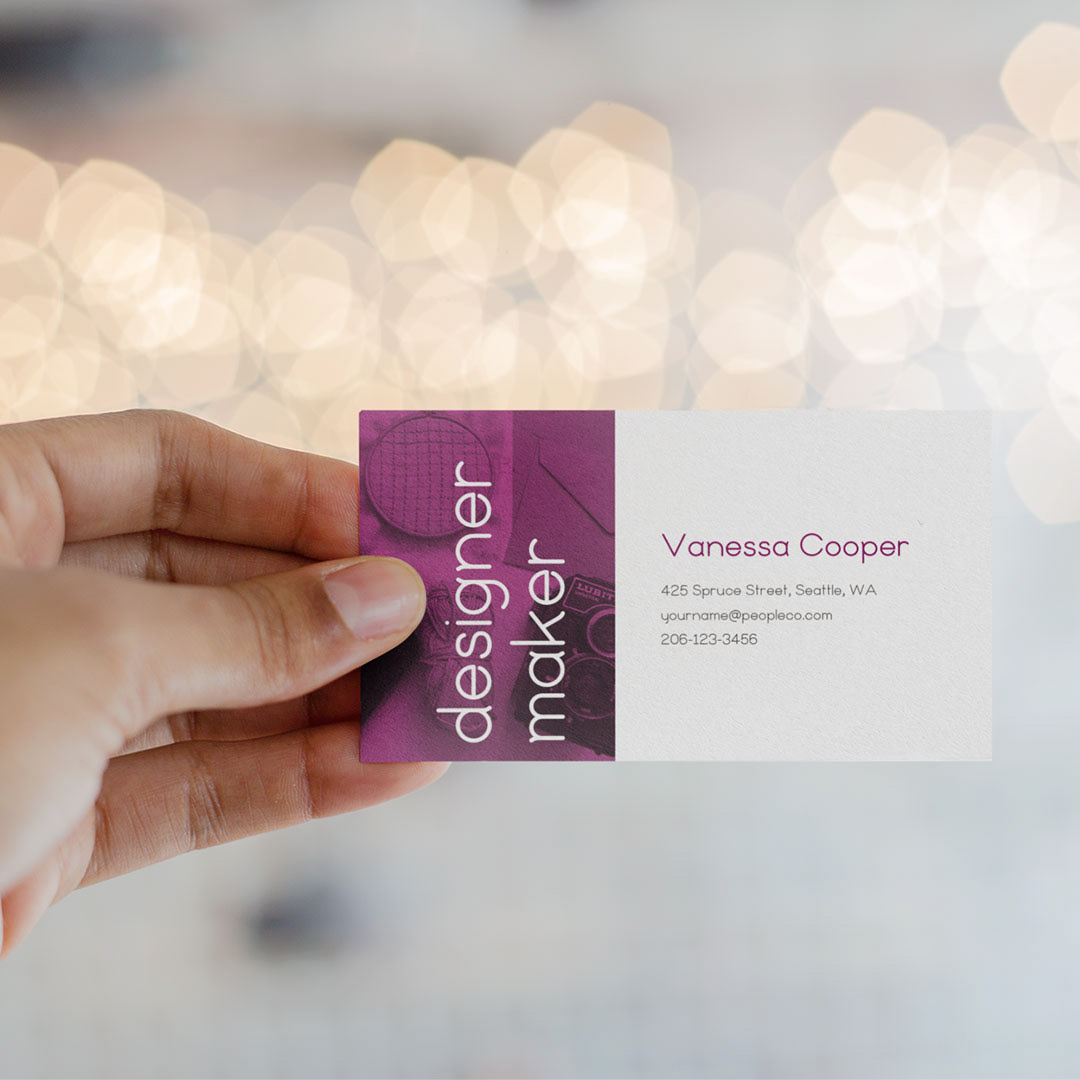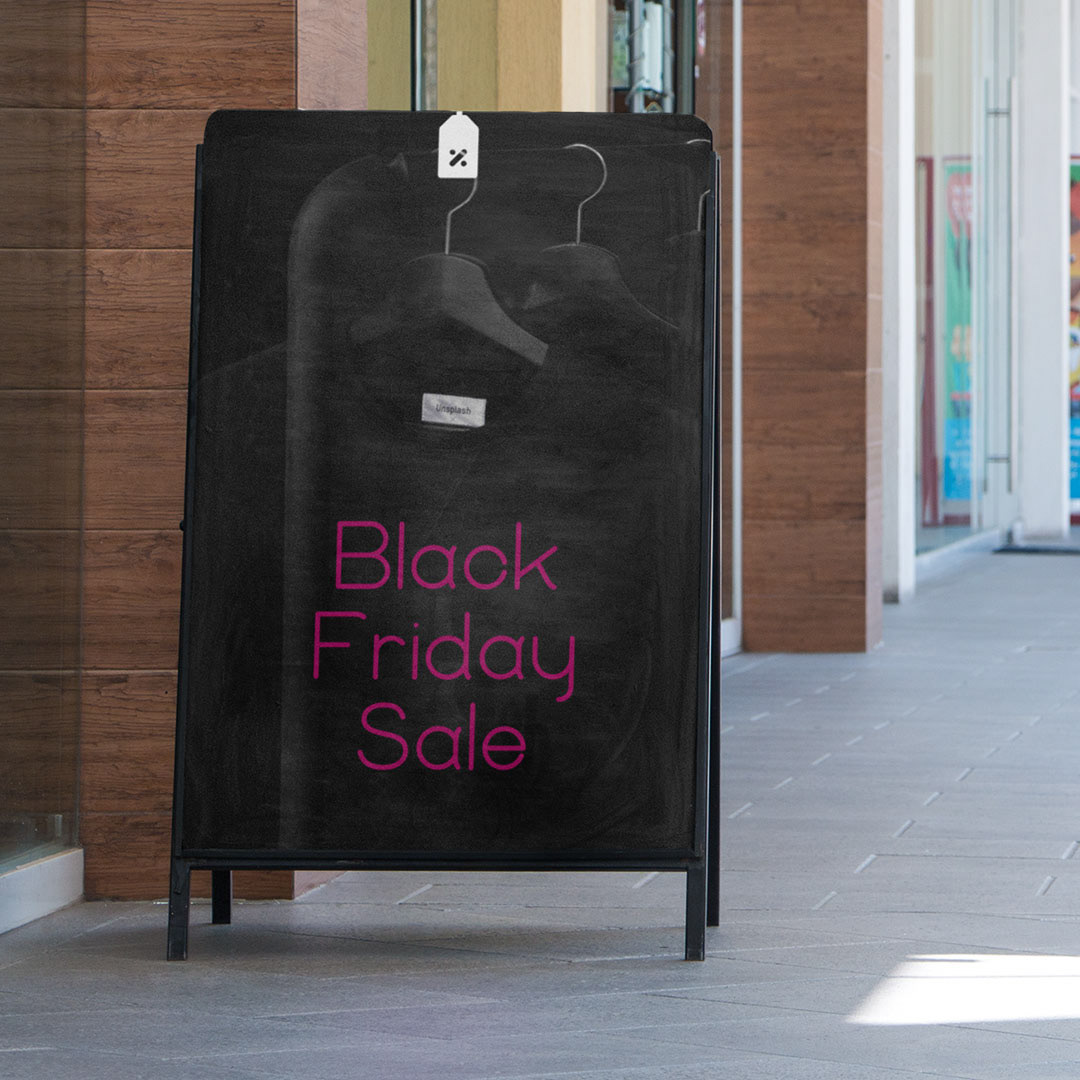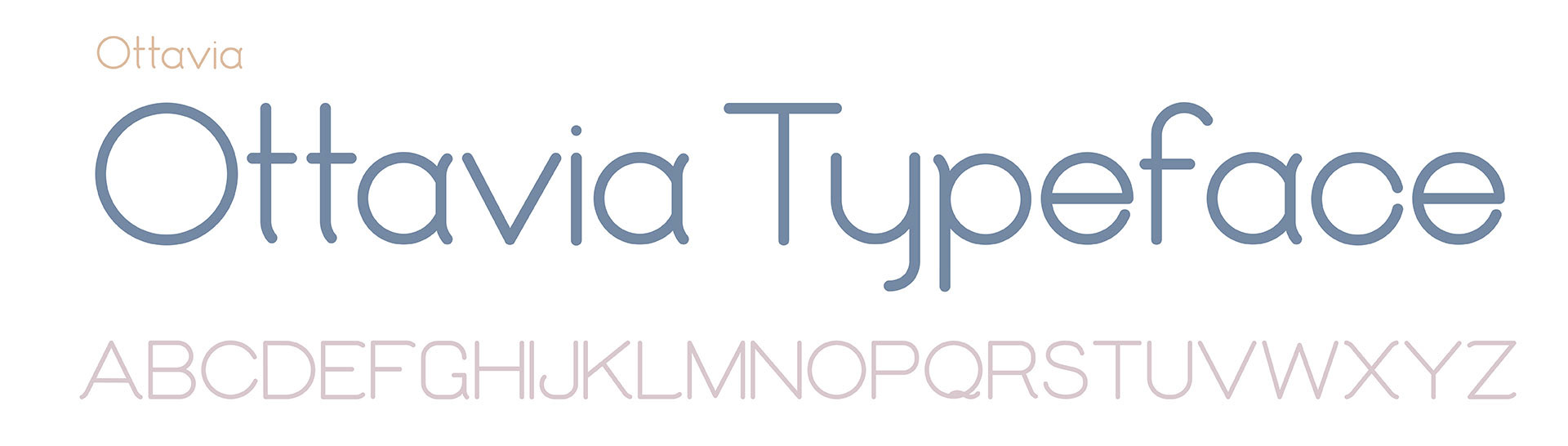
Ottavia means eight, and describes the rounded formation of the letter style. Ottavia is a geometric font with circular stroke endings and softly rounded corners, in a lightweight it has the clean lines and precision of technical drawings, making it perfect for headlines and packaging projects, through to marketing too.
The rounded stroke endings and simplified letter styles work well for titles, Headlines, and at large sizes where the small strokes and slightly rounded features increase.
Ottavia is available in 1 weight and supports Greek and Cyrillic with localised alternatives and as always, it is equipped with several typographic extras: tabular figures, arbitrary fractions, symbols and dingbats.